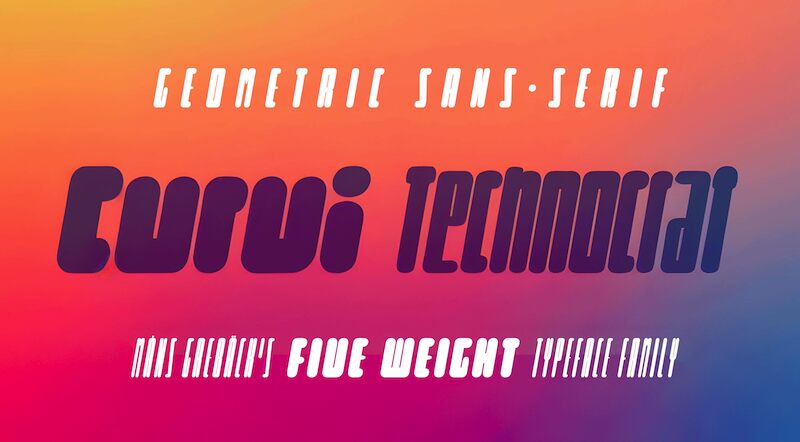
Curvi Technocrat Light, designed by Mans Greback, is a sleek and modern display font ideal for futuristic projects. With its techno style and semi-bold weight, it exudes a sense of innovation and cutting-edge design. The ultra-condensed width makes it perfect for headlines, logos, and branding materials where space is limited but impact is crucial. Whether you're working on a tech startup website, video game graphics, or bold advertising campaigns, Curvi Technocrat Light will elevate your project with its distinctive and sophisticated look. Embrace the future with this captivating font choice.
Curvi Technocrat is a rounded, geometric font that captures the essence of speed and forward movement. Inspired by the smooth curves of race cars and the energy of urban graffiti, this heavy, slanted font family adds a touch of dynamism and softness to your designs.